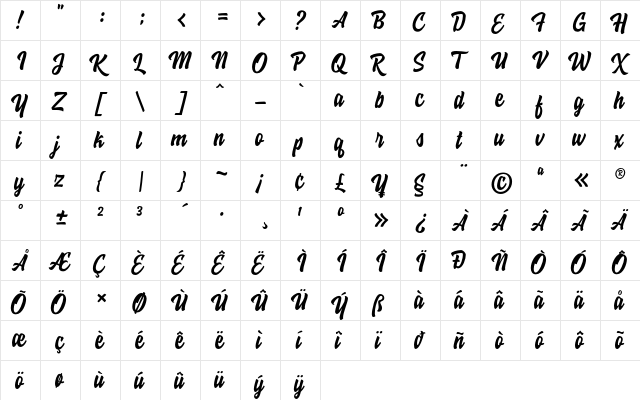
Hoodson Script Free Demo Regular
| Foundry | Dirtyline Studio |
| Designer | Hendra Maulia |
Design Context for Hoodson Script Free Demo Typeface
Hoodson Script Free Demo brings a calligraphic fluidity to the page — its connecting strokes and expressive curves give it an unmistakably human quality.
Font Pairing: Combine Hoodson Script Free Demo with a simple geometric sans for maximum contrast — the tension between flowing curves and clean structure is a classic typographic pairing.
Pro Tip: Pair Hoodson Script Free Demo with a clean sans-serif for supporting text. The contrast between fluid script and geometric structure creates an elegant typographic hierarchy.